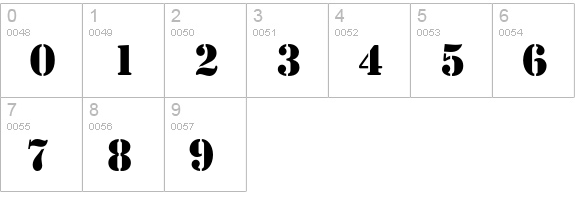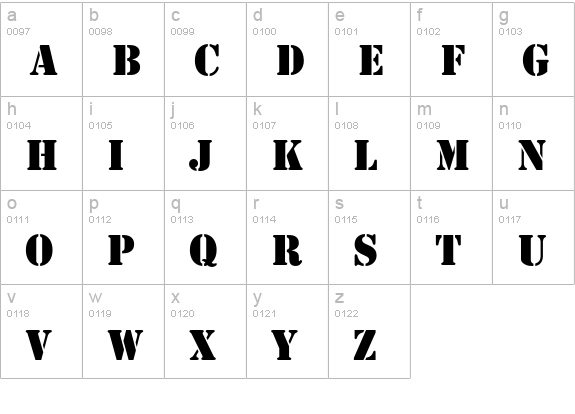
Stencil Std Bold is a strong, high-contrast variant in the Stencil typeface family \xE2\x80\x94 well suited to headlines, attention-grabbing titles, and strong calls-to-action.
Stencil Std Bold font is a bold and impactful typeface that exudes strength and character. With its clean lines and sturdy design, this font is perfect for making a statement in your designs. Whether you're creating posters, logos, or headlines, Stencil Std Bold will command attention and leave a lasting impression. The best part? Stencil Std Bold is available for free download at FontsMarket.com. This means you can easily access this powerful font and incorporate it into your projects without any cost. Don't miss out on the opportunity to add Stencil Std Bold to your font collection and elevate your designs with its bold presence. Download it now and let your creativity shine with this striking typeface.